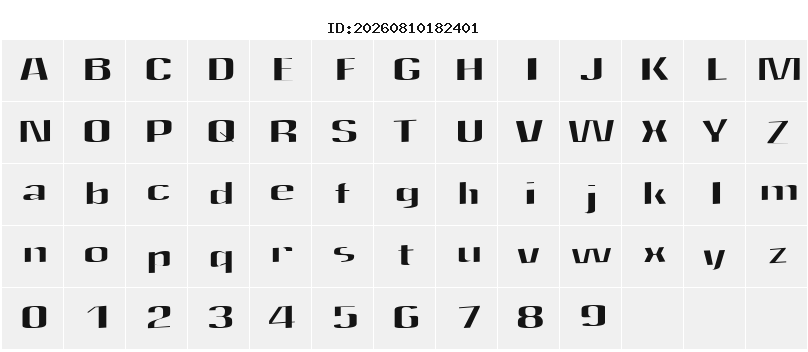
Quantity Preview
• Font Name: Quantity
• Font ID: Quantity
• Full Font Name: Quantity
• PostScript Name: Quantity
About Quantity.ttf
Quantity.ttf is a modern, elegant sans-serif font designed for ultimate readability and visual harmony. Perfect for branding, headlines, web design, and print materials.